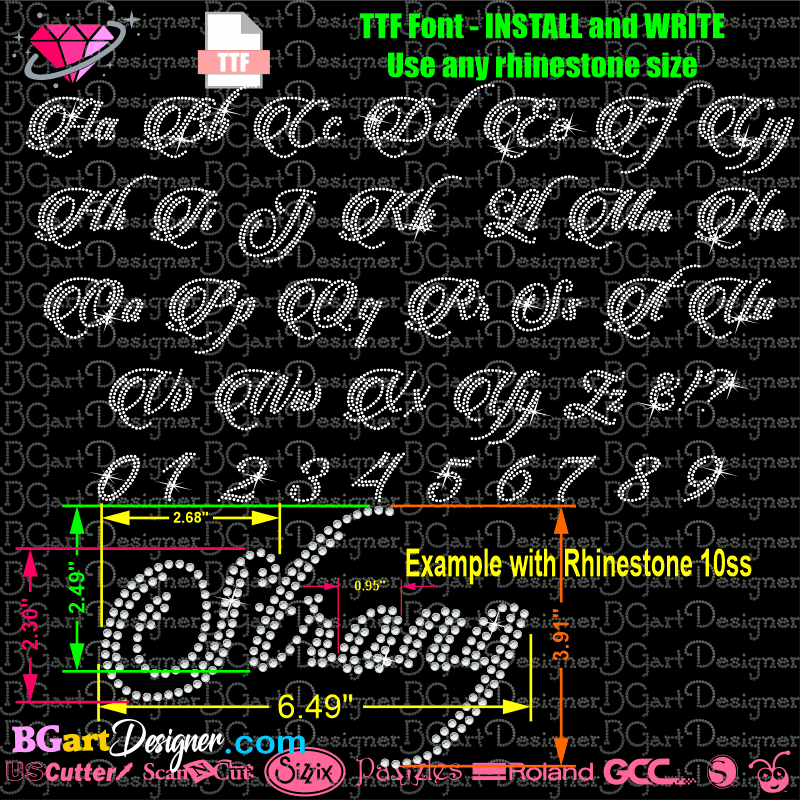
Download Free Rhinestone Fonts And Create Eye-Catching Designs
Are you looking for a unique way to spice up your designs? Rhinestone fonts are the perfect choice! Rhinestone fonts are incredibly versatile, and they can add a touch of glamor to any design. Whether you’re creating a logo, a poster, or a website, rhinestone fonts can help make your design stand out from the crowd. The best part is that you can download free rhinestone fonts online!
What Are Rhinestone Fonts?
Rhinestone fonts are a type of font that is made up of individual pieces of rhinestones arranged to create a unique, glamorous lettering style. The fonts are often used to create logos, posters, and websites with a bit of sparkle and shine. Rhinestone fonts can also be used to create greeting cards, wedding invitations, and other special occasions. Rhinestone fonts are often seen on t-shirts, sweatshirts, and hats, adding a touch of bling to any outfit.
How Can I Use Rhinestone Fonts?
Rhinestone fonts are incredibly versatile, and they can be used in a variety of ways. You can use rhinestone fonts to create logos, posters, websites, greeting cards, and more. You can also use rhinestone fonts to add sparkle and shine to t-shirts, sweatshirts, and hats. When you’re using rhinestone fonts, make sure to use a font size that’s easy to read and one that’s large enough to be seen from a distance.
Rhinestone fonts are a great way to add a touch of sparkle and shine to your designs. You can download free rhinestone fonts online, and you can use them to create logos, posters, websites, and more. When you’re using rhinestone fonts, make sure to use a font size that’s easy to read and one that’s large enough to be seen from a distance. With rhinestone fonts, you can create unique, eye-catching designs that will grab attention and make your designs stand out from the crowd.